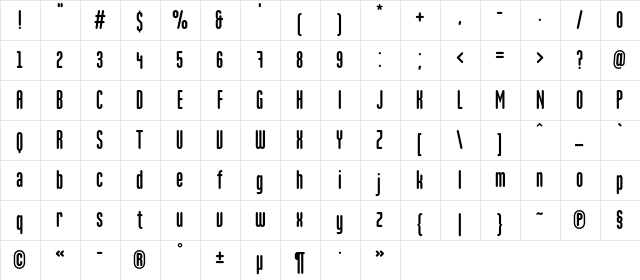
MartenC Regular
Design Context for MartenC Typeface
MartenC takes a measured approach to typography — its balanced proportions and neutral character make it a reliable workhorse for both digital and print work.